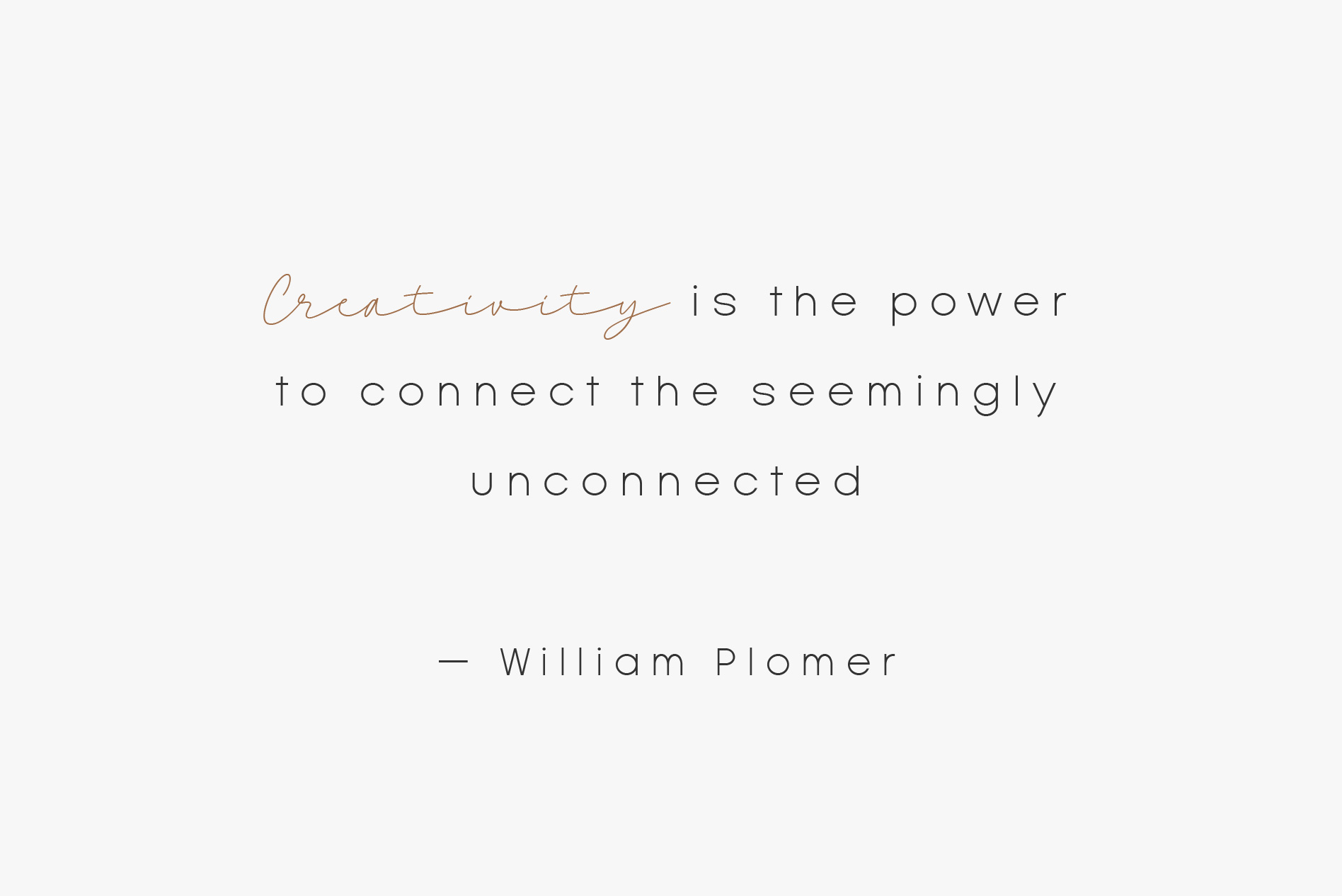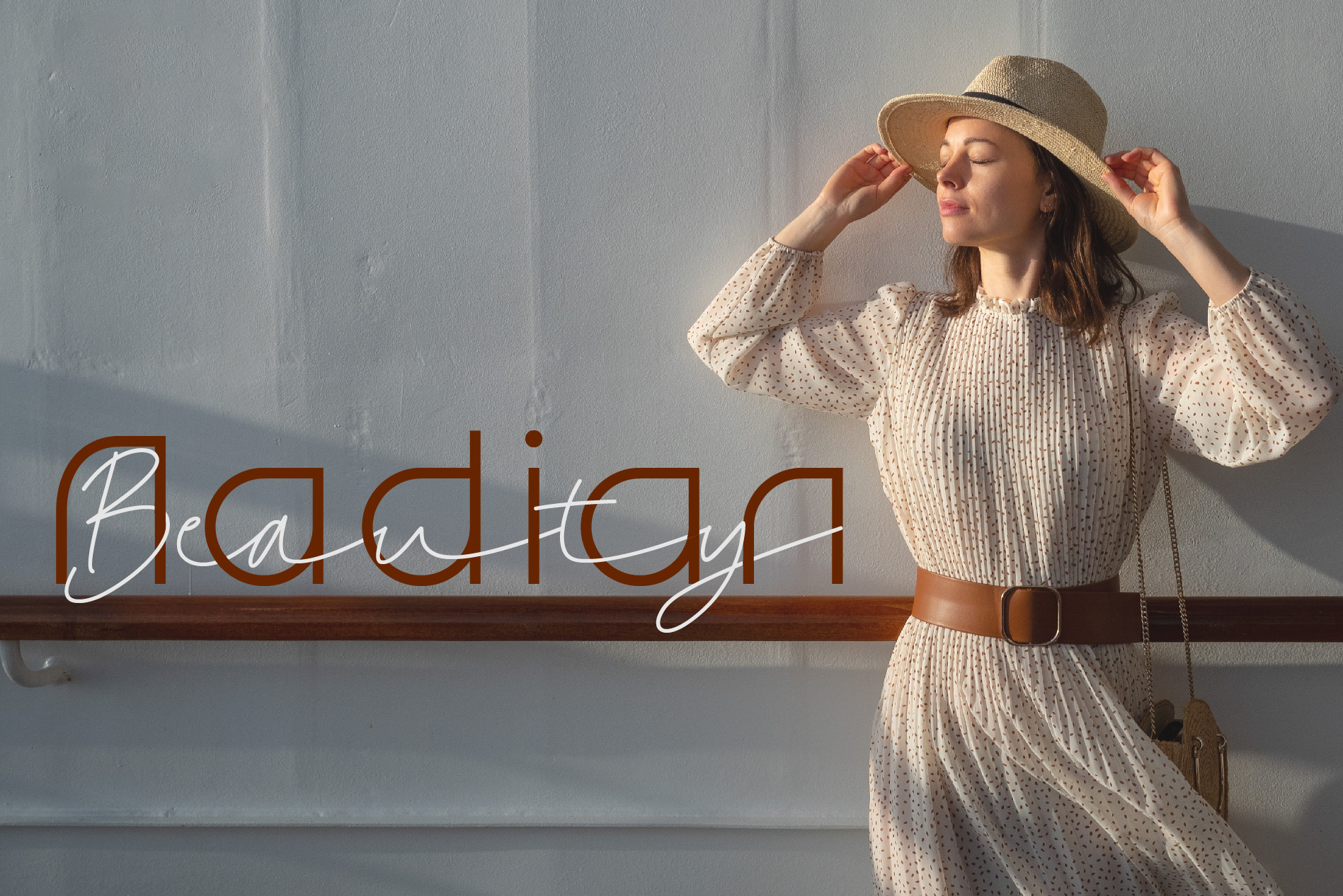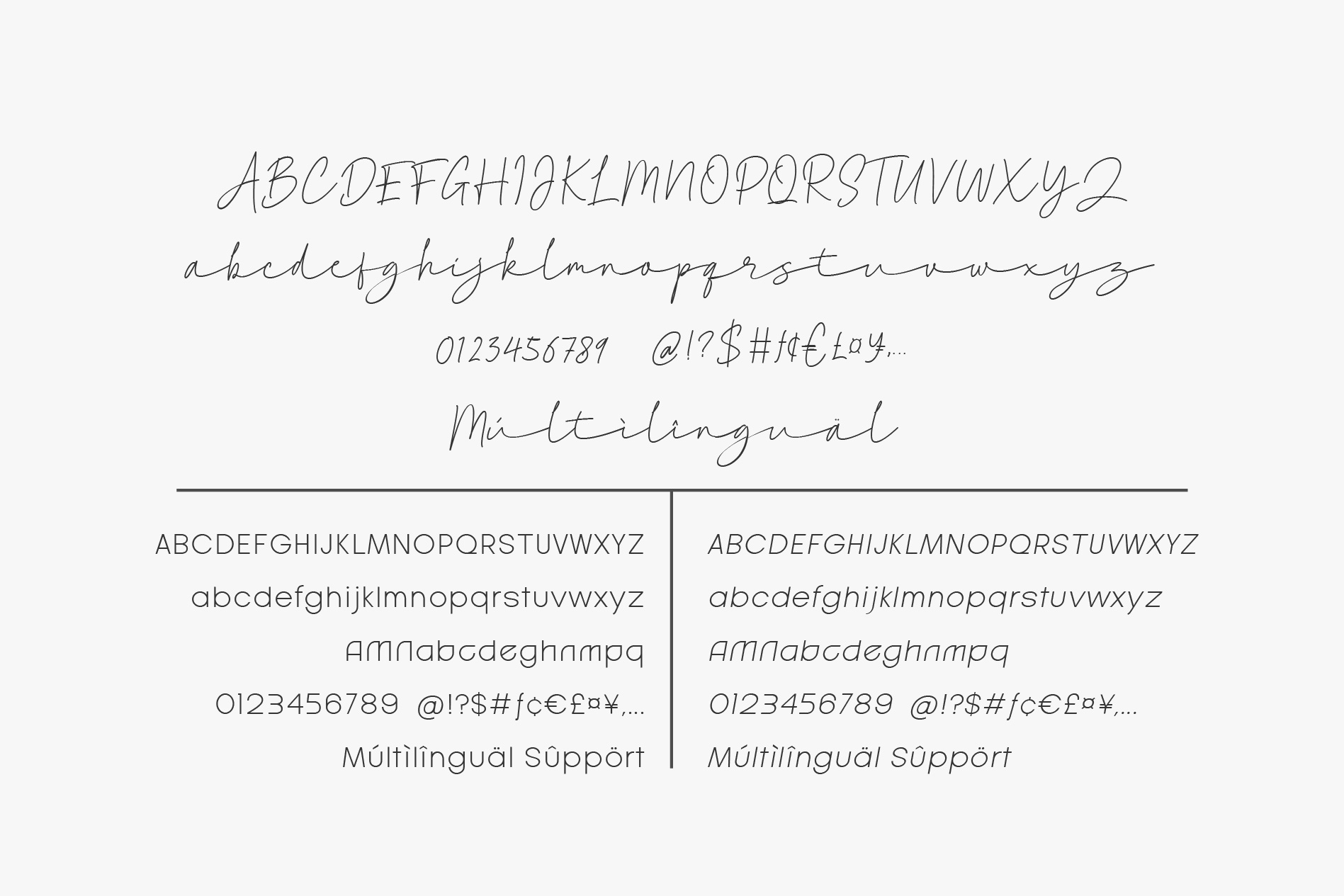
Lichand Font
Lichand Handwritten Font
This font is handwritten monoline script font and sans serif. It would be a perfect choice to design posters, affiches, logos, t-shirt and magazine prints, eye-pleasing typographic designs and more.